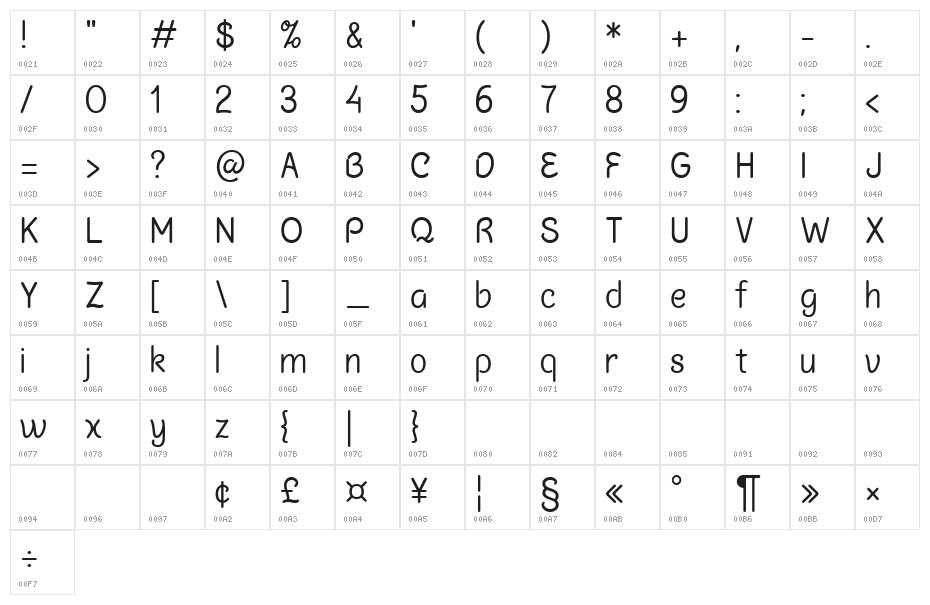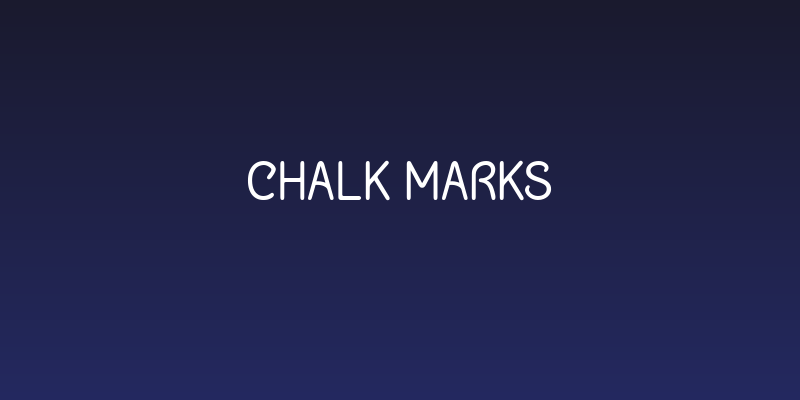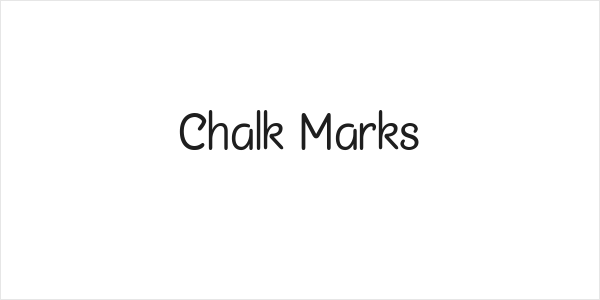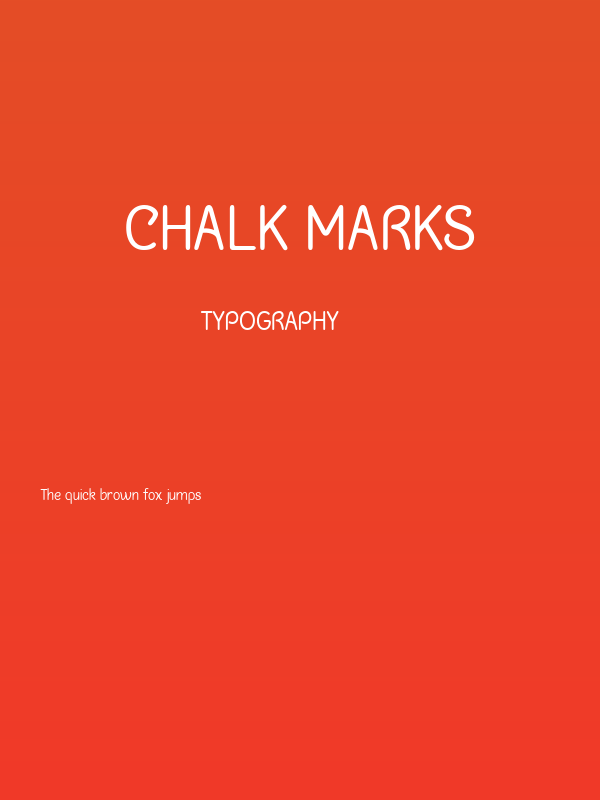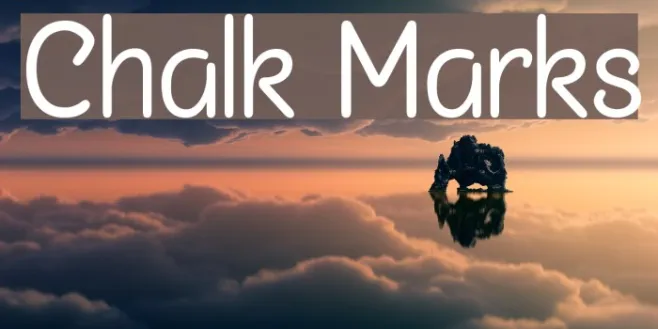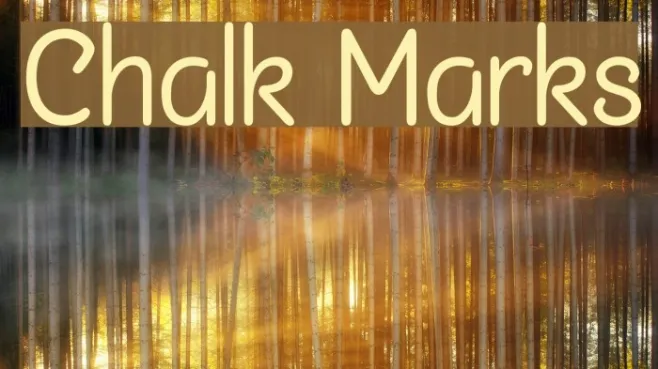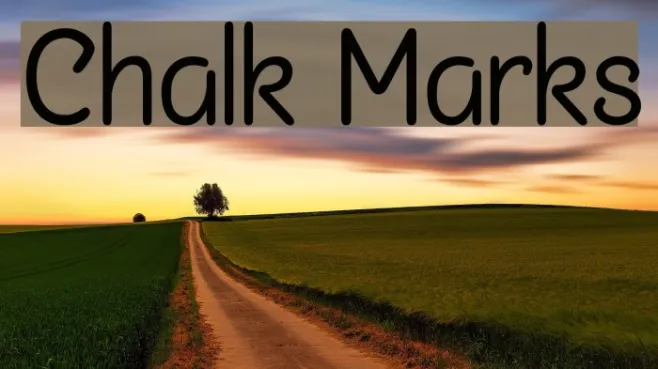
Chalk Marks Font
Chalk Marks Description
This font features a playful and rounded style, reminiscent of chalk writing on a blackboard. The characters are smooth and uniform, with a consistent stroke width that gives it a friendly and approachable appearance. The uppercase and lowercase letters maintain a cohesive look, with rounded edges and a slight tilt that adds to its casual charm. The numerals and special characters follow the same design principles, ensuring a harmonious overall look. This font is ideal for projects that require a touch of whimsy and informality, making it perfect for educational materials, children's books, or creative branding.
| Overall Style | Playful, Casual |
| Proposed Projects | Ideal for educational materials, children's books, creative branding, and playful designs. |